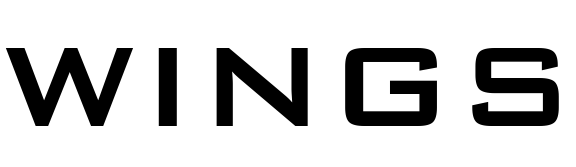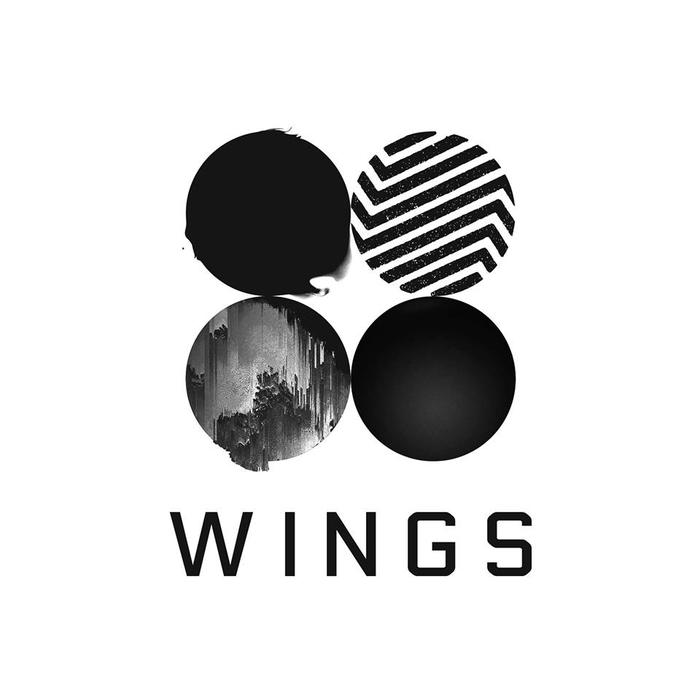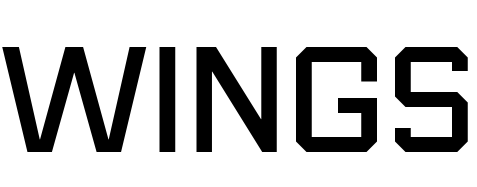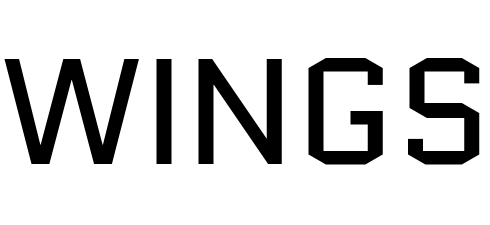
Wings (BTS) Font
Fonts in UseWings is the second studio album by the South Korean boy band BTS, released in 2016. The album features 15 tracks including the hit singles "Blood Sweat & Tears" and "Spring Day."
The album title on the cover art utilizes a slightly condensed, square-shaped sans-serif font. Similar fonts include Bitstream's Bank Gothic, Suomi’s Thud Medium, as well as some free fonts like "Quantico," "Aldrich," and "Electrolize."